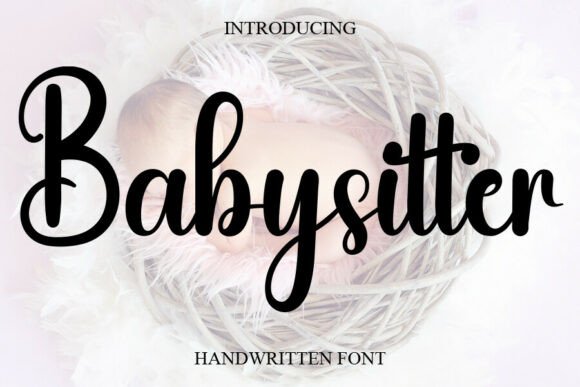
Babysitter Font: A Playful and Heartfelt Handwritten Font for Your Creative Projects
The Babysitter font is a delightful and charming handwritten font that exudes a sense of warmth and personality. Its slim, elongated characters bring a touch of elegance and sophistication to any design project. This font is perfect for creating Father’s Day designs, greeting cards, t-shirts, posters, and more. In this article, we will explore the features and benefits of the Babysitter font and how it can elevate your creative projects.
What is Babysitter Font?
The Babysitter font is a tall, playful handwritten font with a casual, heartfelt feel. It is designed to bring a sense of warmth and personality to your designs. The font features slim, elongated characters that give it a unique and elegant look. The Babysitter font combines a clean handwritten style with a touch of charm, making it ideal for personal and emotional projects.
Key Features of Babysitter Font
Playful and Handwritten
The Babysitter font has a playful and handwritten feel that makes it perfect for creative projects. Its casual and heartfelt style gives it a unique and charming personality.
Slim and Elongated Characters
The font features slim, elongated characters that bring a sense of elegance and sophistication to your designs. This makes it perfect for creating visually appealing and stylish designs.
Clean and Charming
The Babysitter font combines a clean handwritten style with a touch of charm, making it ideal for personal and emotional projects. Its clean and charming look makes it perfect for creating designs that require a personal touch.
Use Cases for Babysitter Font
Father’s Day Designs
The Babysitter font is perfect for creating Father’s Day designs. Its playful and heartfelt style makes it ideal for creating personalized and emotional designs for fathers.
Greeting Cards
The font is also perfect for creating greeting cards for various occasions. Its clean and charming look makes it ideal for creating beautiful and stylish greeting cards.
T-Shirts and Apparel
The Babysitter font is perfect for creating stylish and visually appealing t-shirts and apparel. Its playful and handwritten style makes it ideal for creating unique and personalized designs.
Posters and Flyers
The font is also perfect for creating posters and flyers for various occasions. Its clean and charming look makes it ideal for creating visually appealing and effective designs.
Benefits of Using Babysitter Font
Unique and Personalized Designs
The Babysitter font allows you to create unique and personalized designs that stand out from the crowd. Its playful and handwritten style makes it ideal for creating designs that require a personal touch.
Easy to Read and Understand
The font is easy to read and understand, making it perfect for creating designs that require clear and concise communication.
Versatile and Flexible
The Babysitter font is versatile and flexible, making it perfect for creating a wide range of designs. Its clean and charming look makes it ideal for creating designs for various occasions and industries.
The Babysitter font is a delightful and charming handwritten font that exudes a sense of warmth and personality. Its slim, elongated characters bring a touch of elegance and sophistication to any design project. This font is perfect for creating Father’s Day designs, greeting cards, t-shirts, posters, and more. With its playful and handwritten style, clean and charming look, and versatile and flexible nature, the Babysitter font is an ideal choice for designers and creatives looking to add a personal touch to their designs.
What is the Babysitter font?
The Babysitter font is a tall, playful handwritten font with a casual, heartfelt feel. It features slim, elongated characters that bring a sense of warmth and personality to any design project.
What are the key features of the Babysitter font?
The key features of the Babysitter font include its playful and handwritten style, slim and elongated characters, and clean and charming look.
What are the use cases for the Babysitter font?
The Babysitter font is perfect for creating Father’s Day designs, greeting cards, t-shirts, posters, and more. Its playful and handwritten style makes it ideal for creating personalized and emotional designs.
What are the benefits of using the Babysitter font?
The benefits of using the Babysitter font include creating unique and personalized designs, easy to read and understand, and versatile and flexible.